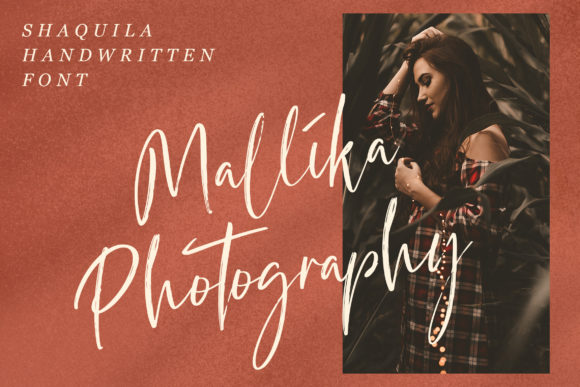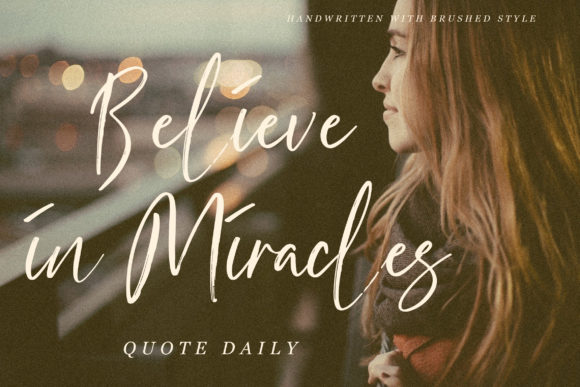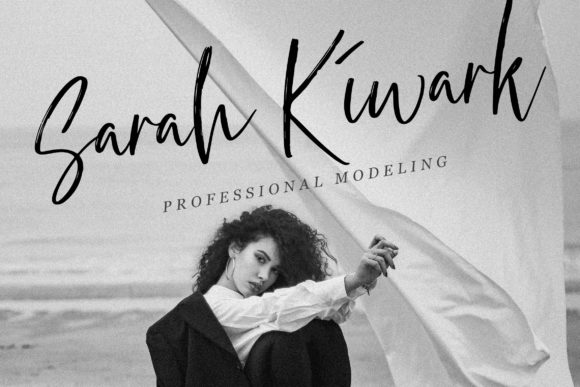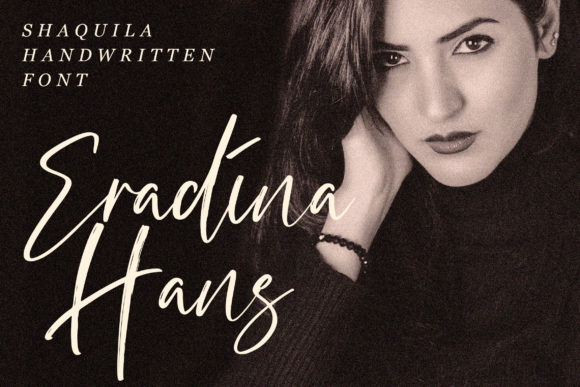
About Shaquila Font
Shaquila is a relaxed and delicate handwritten font. This versatile script font has a wide spectrum of applications ranging from greeting cards to headlines and is guaranteed to add a dazzling feel to your next project.